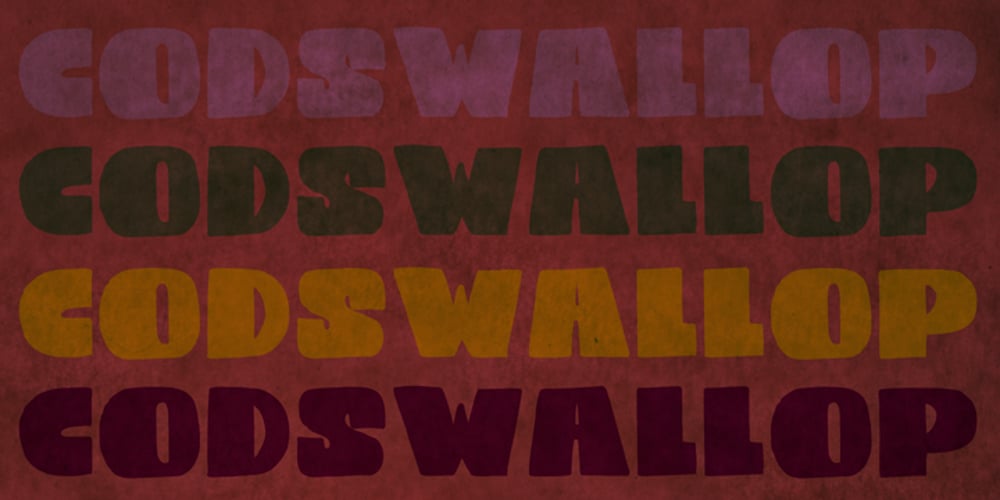
Codswallop Font Family was designed by David Kerkhoff and published by Hanoded. Codswallop contains 6 styles and family package options. The origin of the word Codswallop is uncertain, but it might have something to do with a 19th century English soft drink brewer named Hiram Codd. Codswallop is a beautiful hand drawn font. A little weird, a tad grotesque and a wee bit over the top, but fun and useful nonetheless.